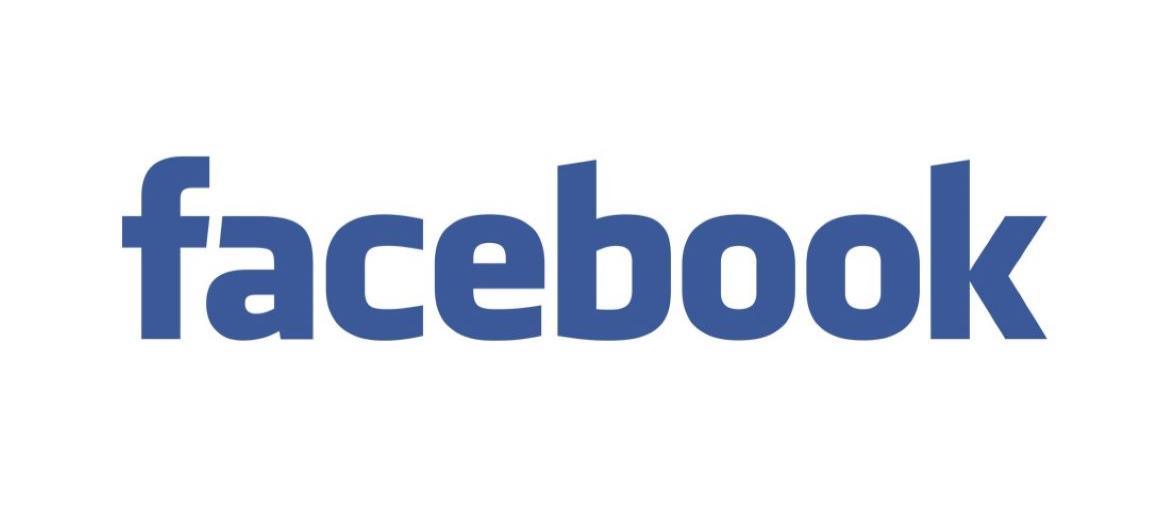
Facebook Font
Facebook Font has always impressed because of how simple yet strong it looks. Every time you see the app or the branding, it’s clear how much the Facebook logo font contributes to the platform’s identity as a reliable and user-friendly social network. The typeface perfectly reflects clarity, trustworthiness, and approachability. The Facebook logo font is based on a custom version of Klavika Bold, a clean, geometric sans-serif typeface. This choice is straightforward, professional, and highly readable across screens of all sizes, remaining consistent across digital platforms, marketing materials, and app interfaces.
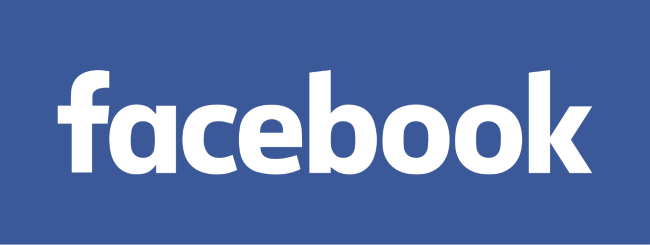
Compared to other social media brands, Facebook Font stands out for its clarity and simplicity. That’s why it has become instantly recognizable worldwide. Facebook Font shows how a logo font can convey trust and usability while remaining modern and timeless.